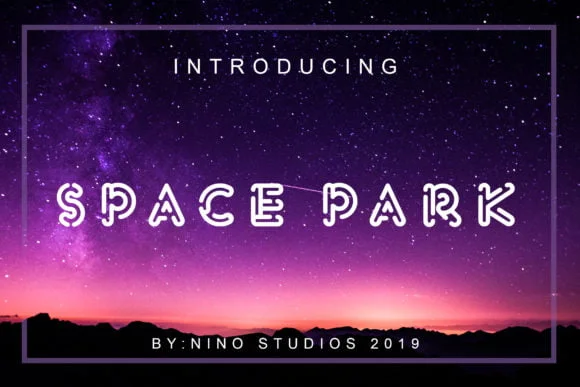
Space Park Font
Space Park Font is perfect for sci-fi movie posters, futuristic branding projects, space-themed video games, technology company logos, science fiction book covers, planetarium displays, astronomy websites, space exploration campaigns, retro-futuristic designs, and cosmic event promotions.
Space Park Font is exciting because it captures the wonder and mystery of outer space through its distinctive letterforms that evoke the infinite cosmos and futuristic exploration. This captivating typeface combines sleek technological aesthetics with cosmic inspiration, creating a font that instantly transports viewers to otherworldly realms while maintaining professional readability and modern appeal.
The Space Park Font family includes multiple weights and styles that reflect different aspects of space exploration, from sleek spacecraft-inspired letterforms to bold cosmic display variants. The font features unique character details, futuristic ligatures, and space-themed alternate characters that enhance its astronomical personality and design versatility.
Space Park Font Free Download delivers exceptional value for designers working on science fiction, technology, and space-related projects. This professionally crafted typeface has been meticulously designed to convey the excitement and innovation of space exploration while ensuring optimal performance across digital and print applications. The font's futuristic character and technical precision make it ideal for cutting-edge brands and forward-thinking organizations.
The cosmic appeal of Space Park Font makes it an invaluable resource for entertainment companies, technology startups, and educational institutions focused on science and space exploration. The font's otherworldly character helps brands communicate innovation, discovery, and limitless possibilities that resonate with audiences fascinated by space exploration and technological advancement.
Science museums, aerospace companies, and entertainment brands consistently choose Space Park Font for its unique ability to evoke the excitement and mystery of space through typography alone. The font excels in applications where creating sense of wonder and technological sophistication is essential to engaging audiences and communicating forward-thinking brand values.
This font's comprehensive character set includes futuristic letterforms, space-themed numerals, cosmic punctuation marks, and specialized symbols that support authentic sci-fi typography composition. The consistent styling maintains the space exploration theme throughout all characters while ensuring professional readability across all astronomical and technological design applications.